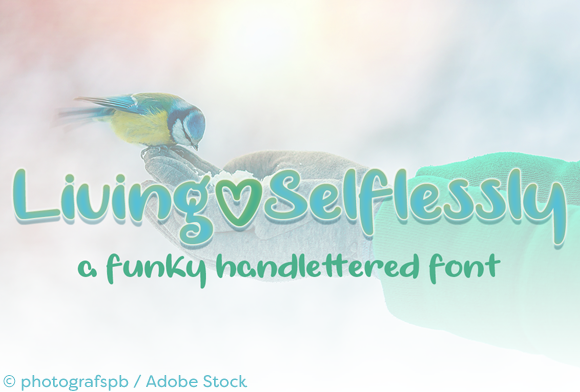
HomeScript FontsLiving Selflessly Font Script Fonts Living Selflessly Font FacebookTwitterPinterestWhatsApp About Living Selflessly Font The Living Selflessly is a funky hand-lettered font that is great for a variety of projects! DOWNLOAD NOW People also explored Just About Rite Font Leluhur Font One Luminous Font Weisshorn Font Attention Font Lemonade Stand Font Raghinso Font Blingo Jamur Font 155 0 TagsLiving Selflessly Font Previous articleLatia Script FontNext articleCrazy Beautiful Font LEAVE A REPLY Cancel reply Comment: Please enter your comment! Name:* Please enter your name here Email:* You have entered an incorrect email address! Please enter your email address here Website: Save my name, email, and website in this browser for the next time I comment. Personal Use Free Camping Personal Use Free Read more about this font Vivacious Personal Use Free Read more about this font Motherblood Personal Use Free Read more about this font Velasco Personal Use Free Read more about this font BLOG The 10 Best Handwriting Fonts to Add Personality to Your Designs 10 of the Best Handwriting Fonts for Adding Personality to Your Designs There will undoubtedly be no other better choice than handwriting fonts to give... Free Fonts Risk: Why Free Fonts Can Be Dangerous for Designers Top 7 Google Fonts Alternatives for Faster and Privacy-Friendly Web Design (2025) Exploring Font Trends